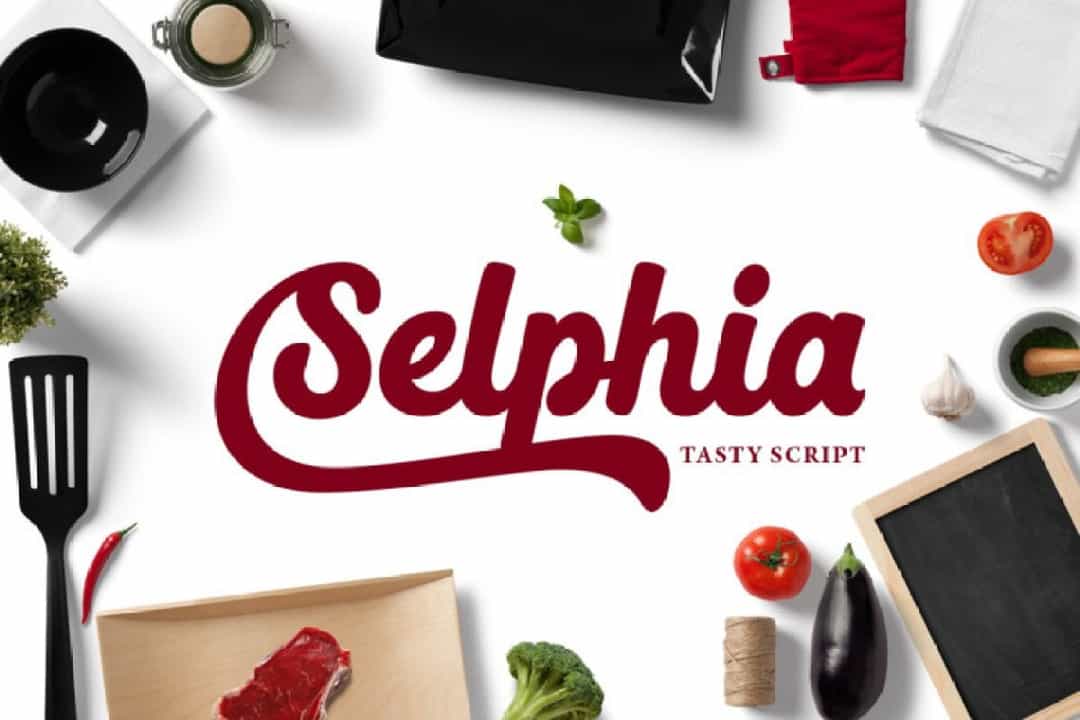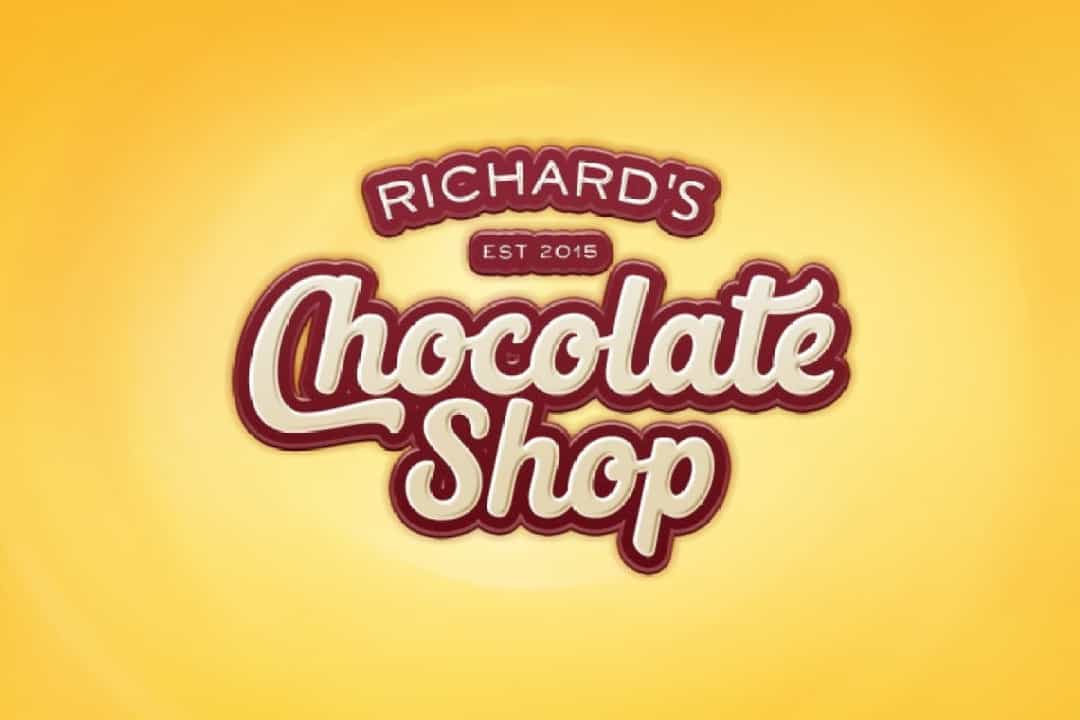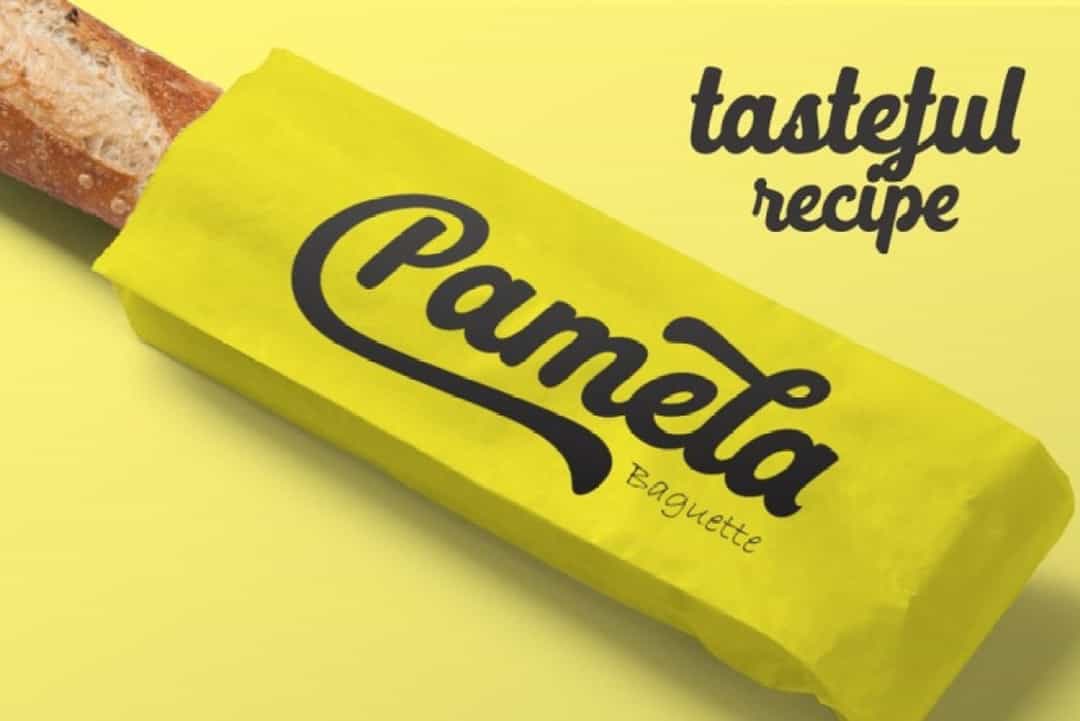
Discover Selphia Typeface, part of the Calligraphy Handwritten Script Personal collection—a versatile and unique font perfect for adding a personal touch to your projects. Download it for free and enjoy crafting designs with style, from invitations to social media posts. This font is available exclusively for personal use, giving you the freedom to create without limits. Unlock your creativity with Selphia Typeface today!
Selphia Bold is a fresh typeface for scripts that contain a flavour of fruits and milk which makes it perfect for headlines or for logos on T-shirts or quotes. This is to be used with Open Type enabled applications like Illustrator, InDesign and CorelDraw X6 but it is possible to interchange with other applications through the Open Type.